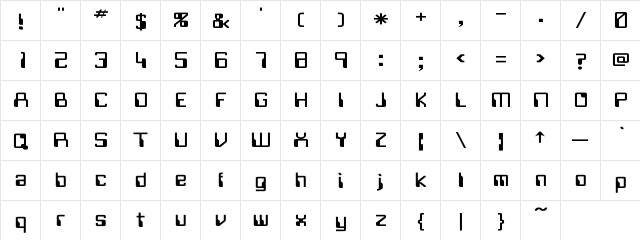
Future Wd Regular
Design Context for Future Wd Typeface
Future Wd has a distinctly futuristic character, with geometric precision and clean angles that feel at home in technology, gaming, and sci-fi contexts.